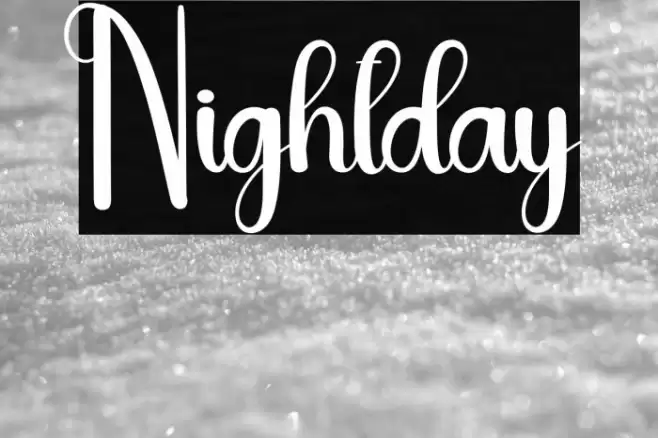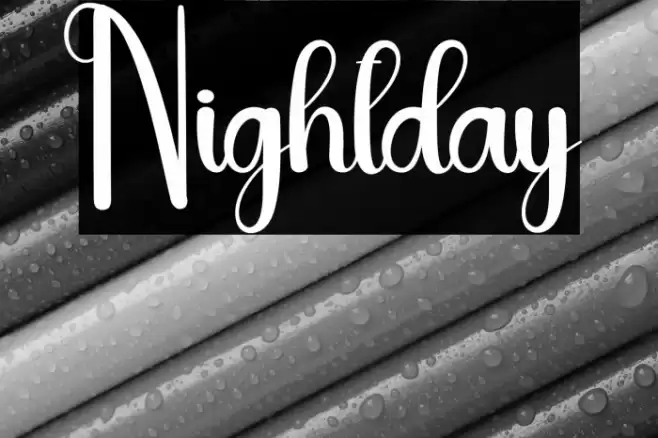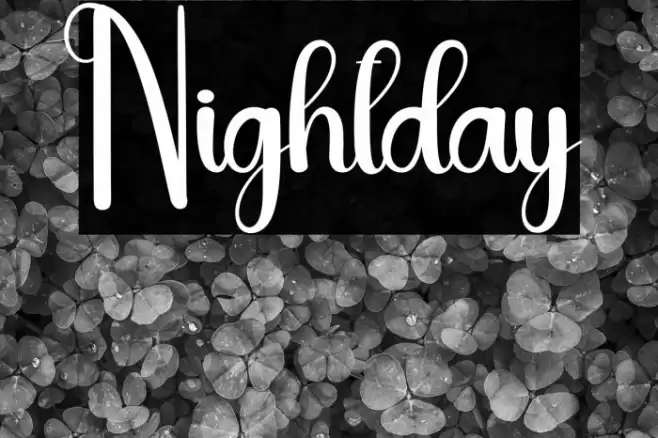
Nightday Font
Nightday Description
This font is a striking blend of elegance and playfulness, characterized by its tall, narrow uppercase letters and flowing, cursive lowercase. The uppercase letters have a modern, sleek appearance with elongated verticals and subtle curves, while the lowercase letters exhibit a more fluid, handwritten style with smooth, connected strokes. The numbers are bold and slightly whimsical, complementing the overall aesthetic. Special characters maintain the font's unique style, adding a touch of flair. The font's high contrast between thick and thin strokes enhances its visual appeal, making it suitable for eye-catching designs.
A modern, elegant font with tall uppercase and cursive lowercase letters from Uncategorized fonts.
- Proposed Projects: Ideal for wedding invitations, branding, fashion magazines, and artistic posters.
- Width: Condensed
- Contrast: High